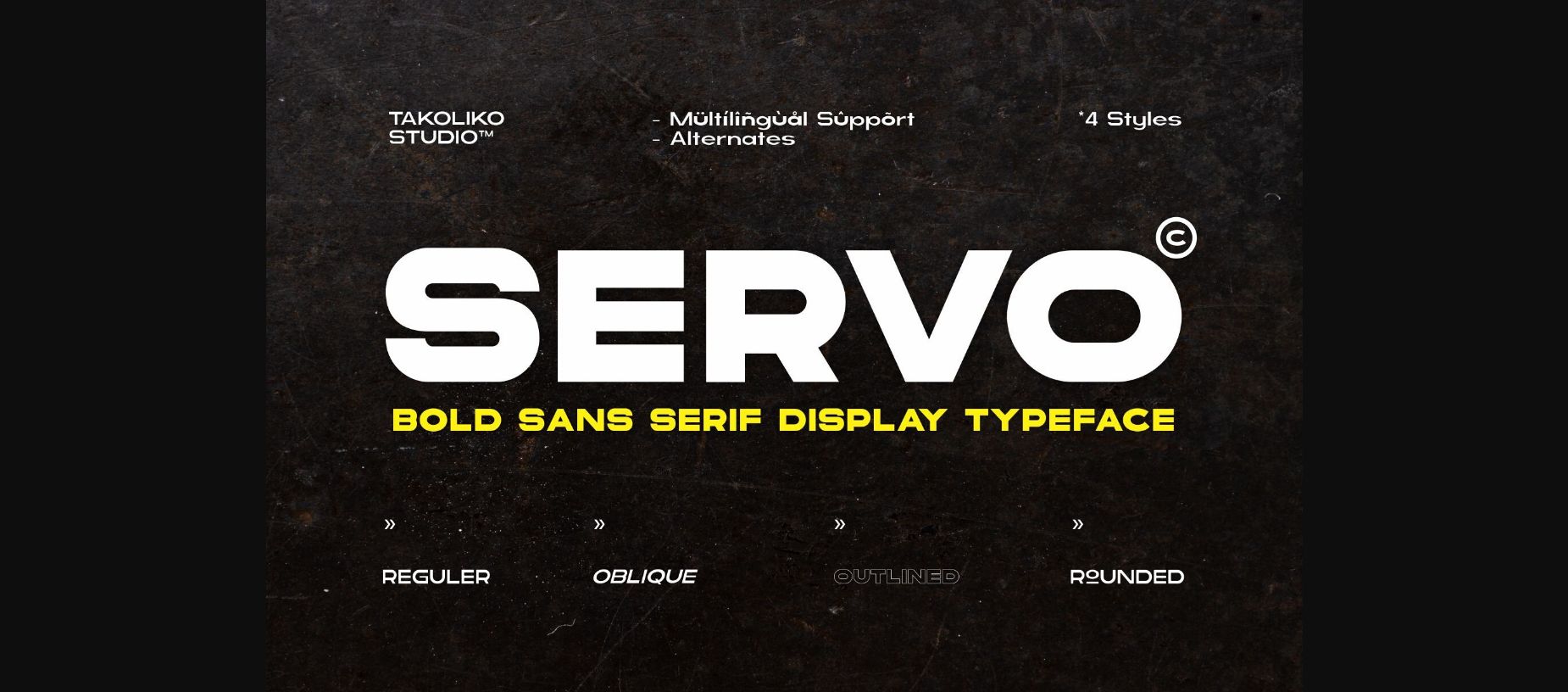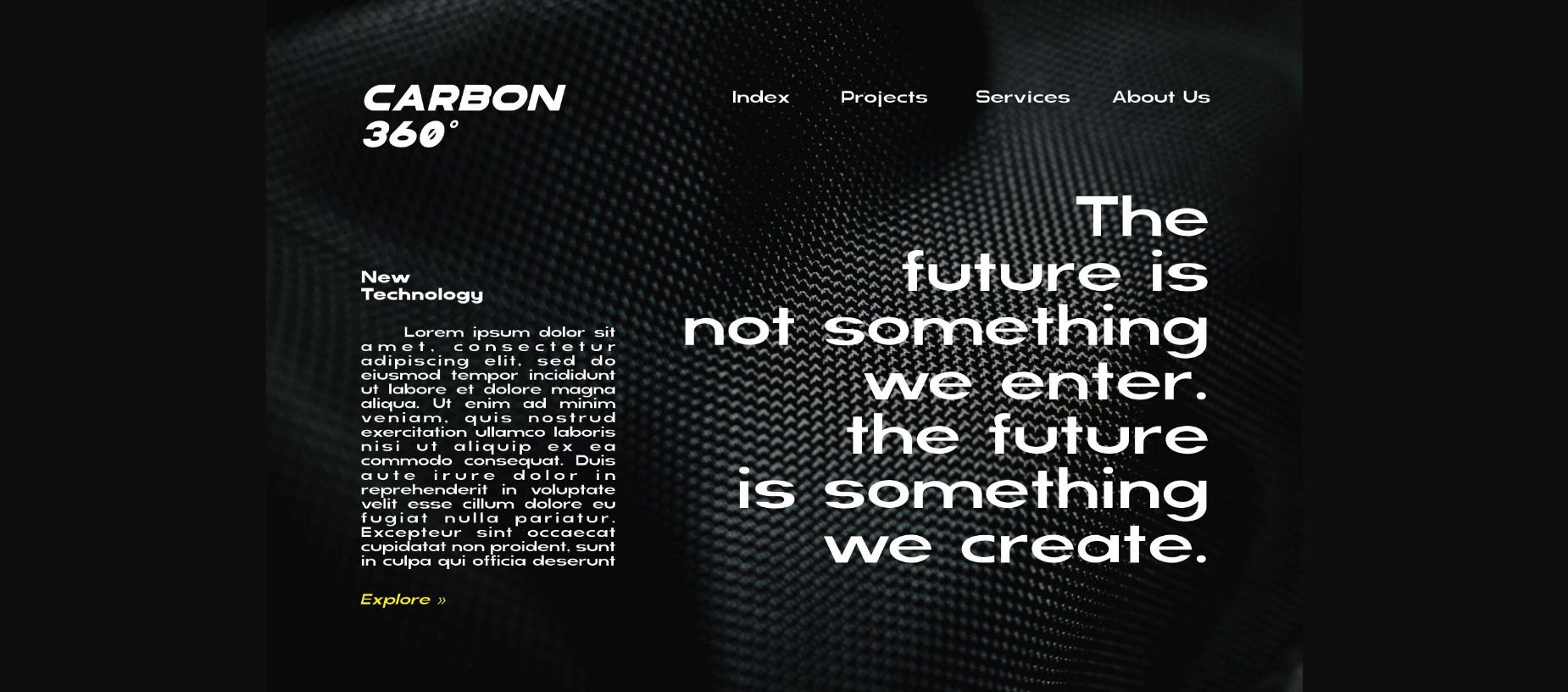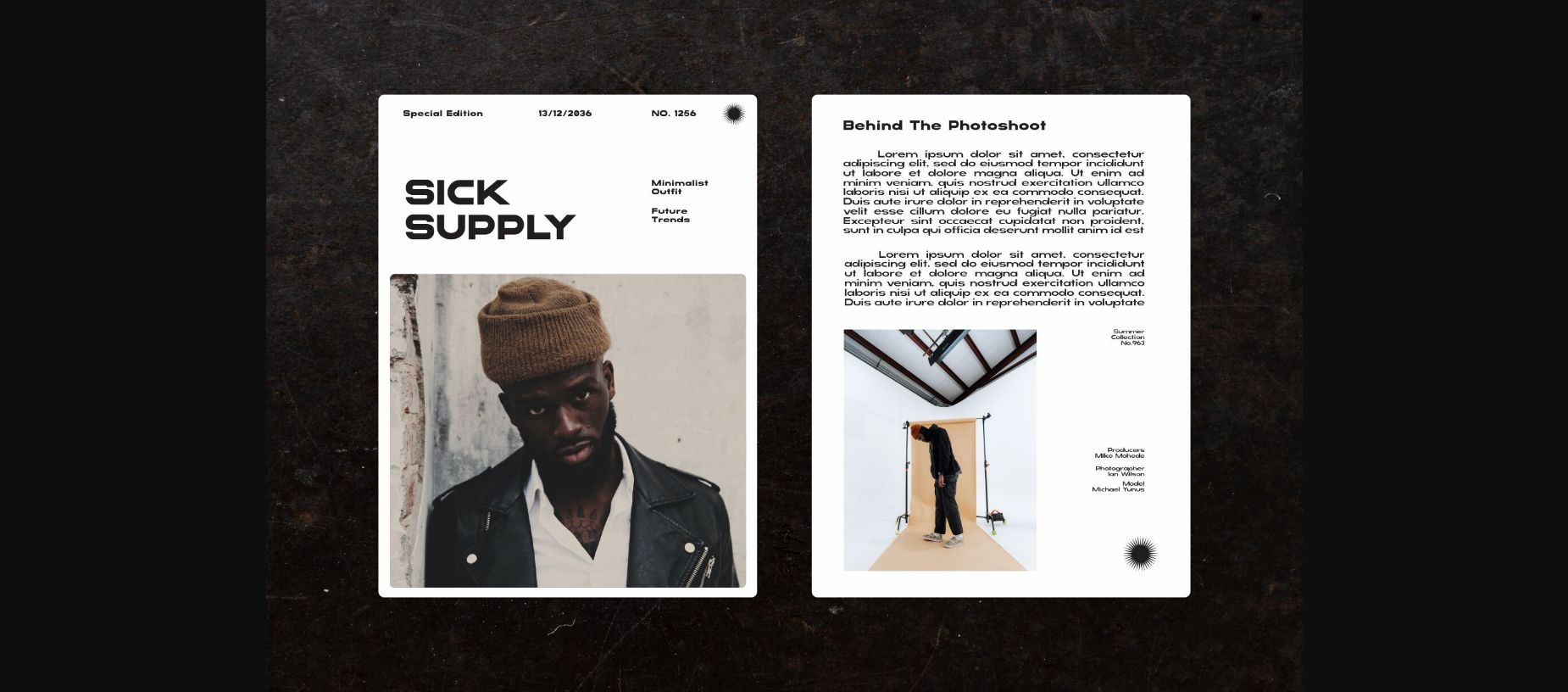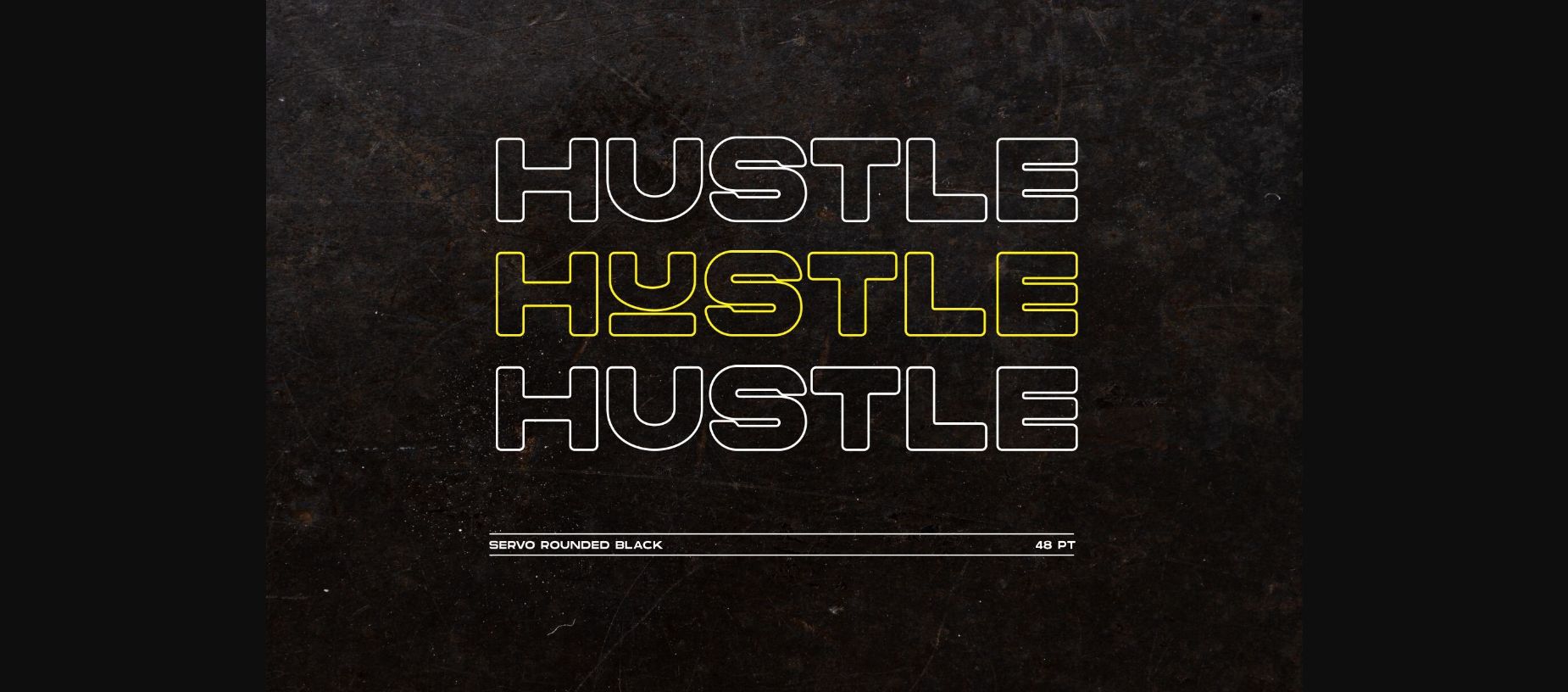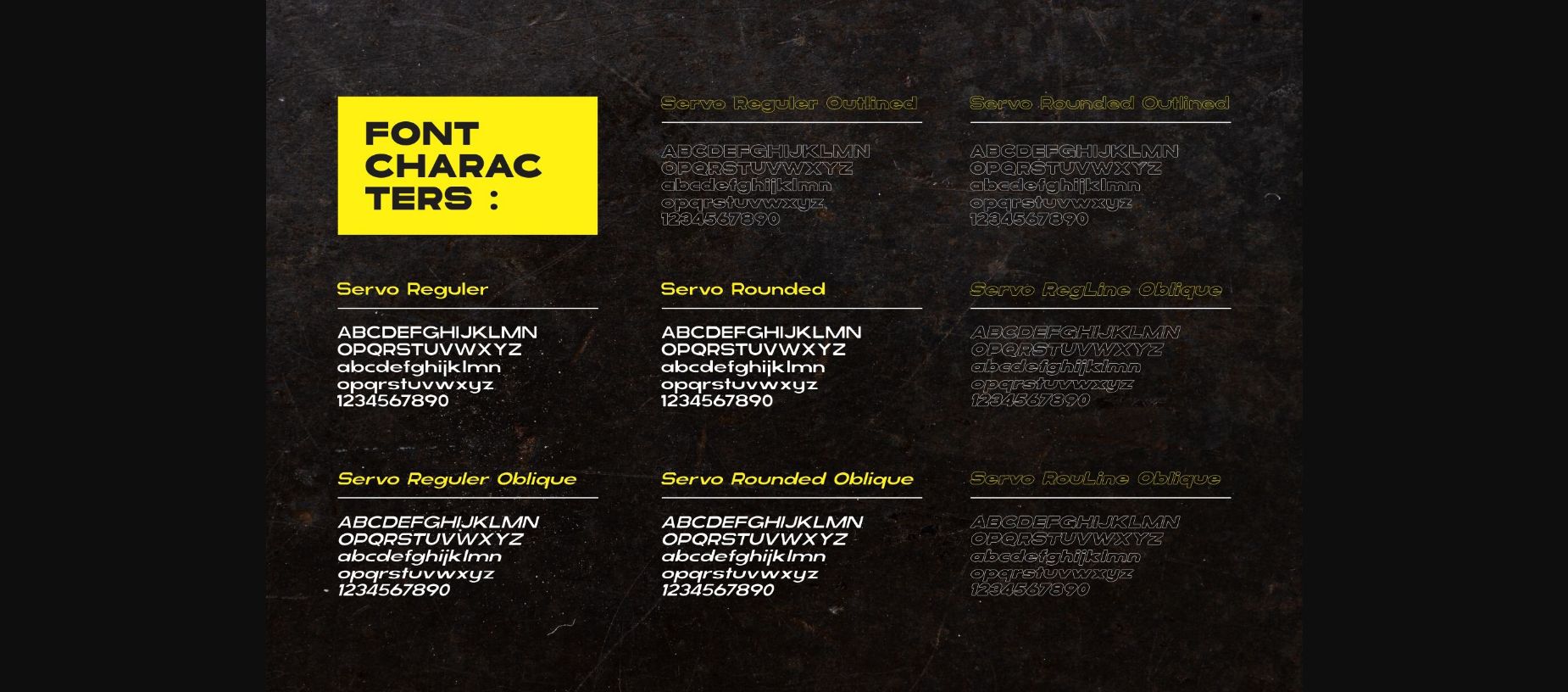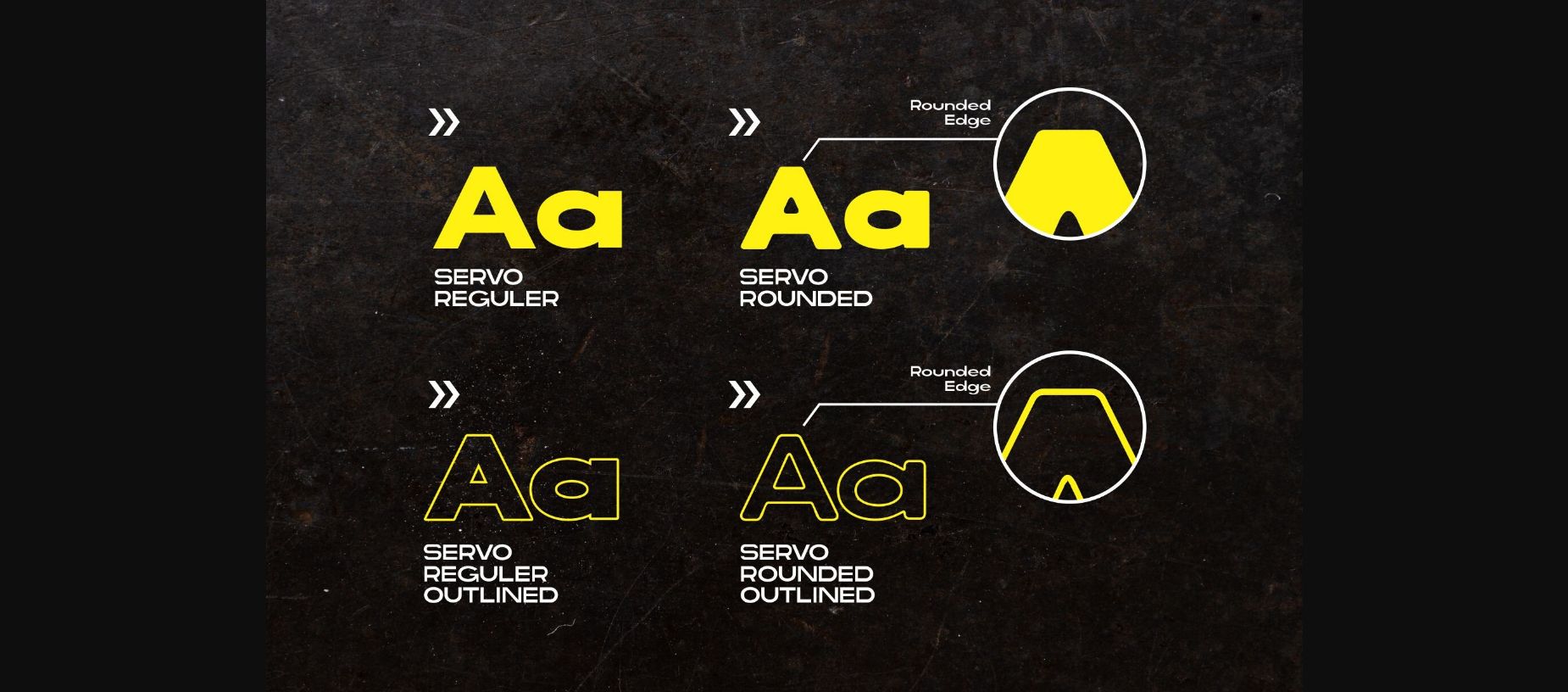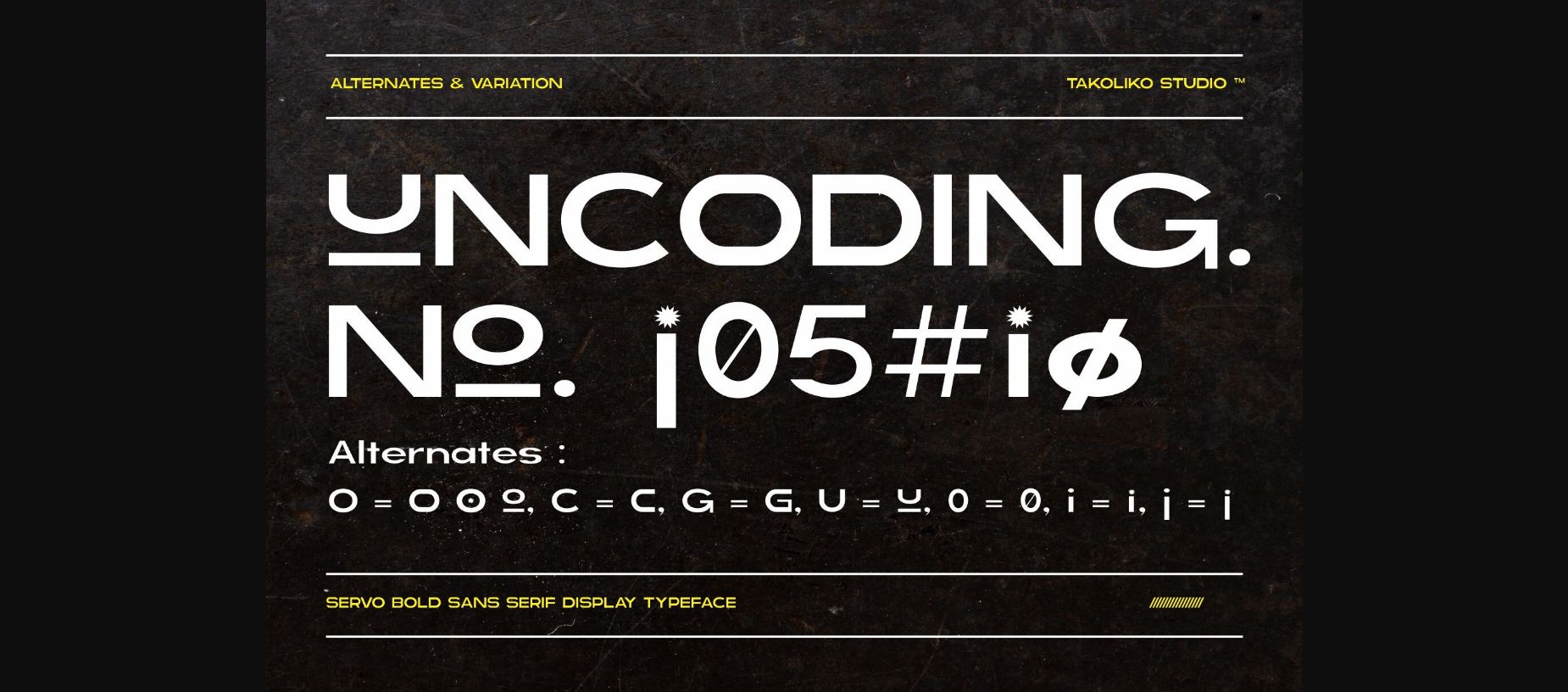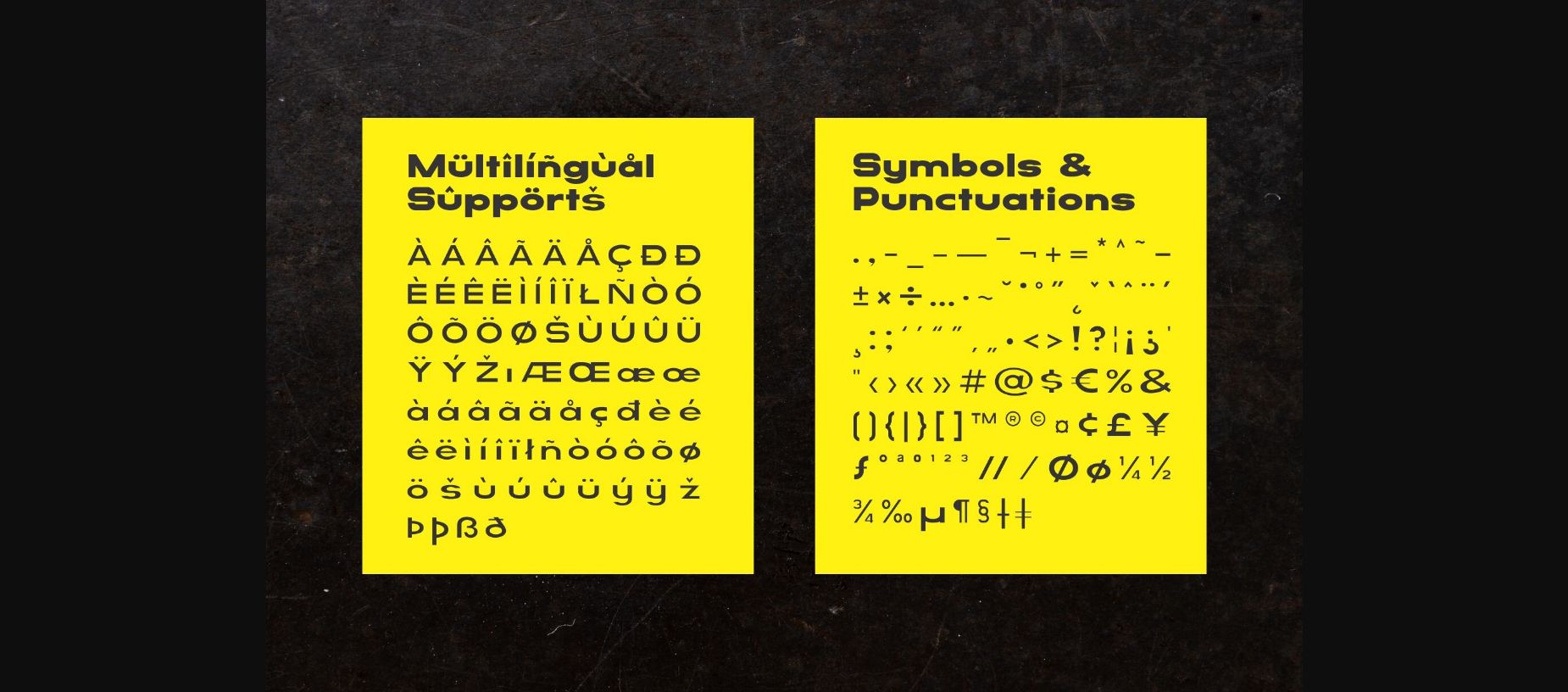
Servo Font
About Servo Font
Servo is a modern sans-serif display typeface. It comes with a regular and rounded style, also outlined style for a different feel. Its bold characteristics make it suitable for attention-grabbing design projects such as headlines, posters, social media displays, and editorials.